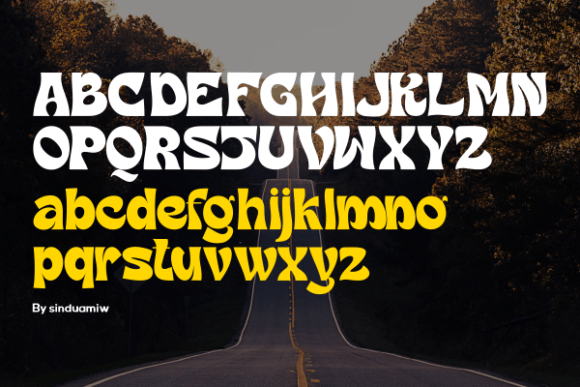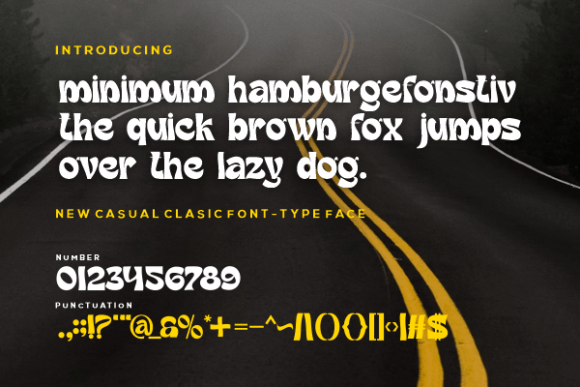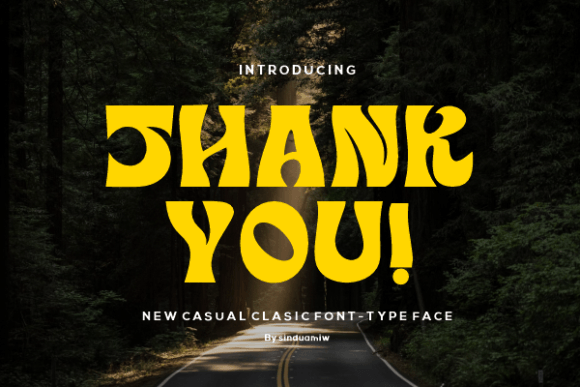
Introduction to Phaquito Clask Font Font
Fonts play a crucial role in design, and the Phaquito Clask Font font is a typeface that brings both character and versatility to any project. Whether you’re working on a branding project, a website, or a print design, the Phaquito Clask Font font offers a unique style that can elevate your work.
A sans-serif font is a typeface that lacks the small projecting features called βserifsβ at the end of strokes.
These fonts are often characterized by their clean, simple lines and modern appearance They are commonly used in contexts where readability and a contemporary aesthetic are desired, such as in digital interfaces, signage, and advertising.
Key Features of Phaquito Clask Font Font
Why Choose Phaquito Clask Font Font?
The Phaquito Clask Font font is more than just a typeface β it’s a design tool that helps you communicate your message with style and clarity. Its unique character set and versatile design make it suitable for a wide range of applications, from elegant invitations to bold headlines.
With its carefully crafted letterforms and balanced proportions, the Phaquito Clask Font font ensures readability and visual appeal across all mediums.
What makes Phaquito Clask Font font special?
The Phaquito Clask Font font stands out with its unique design, exceptional readability, and versatility across various design applications.